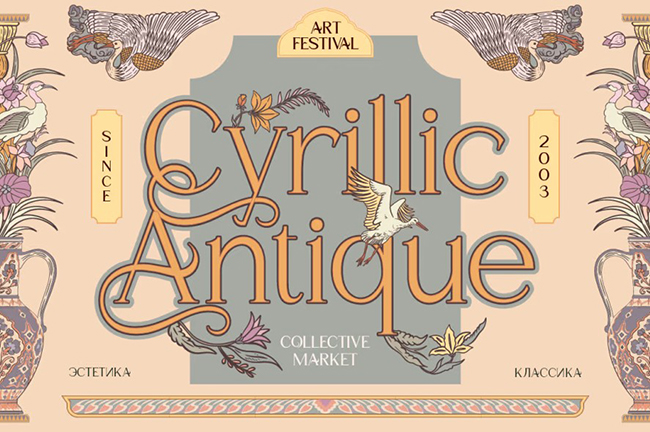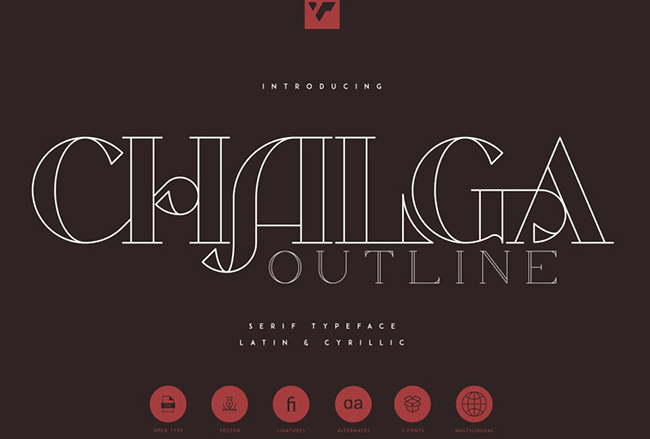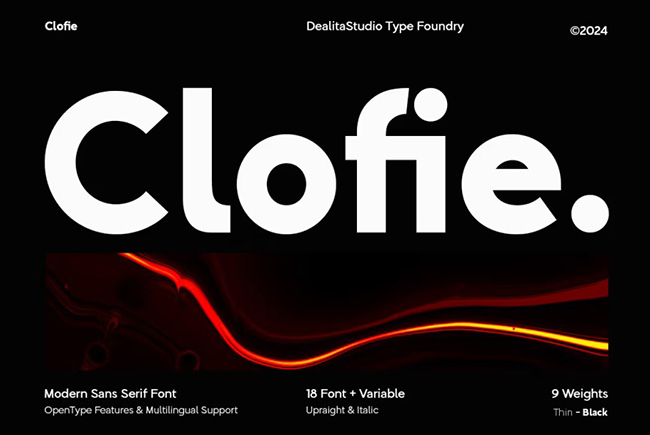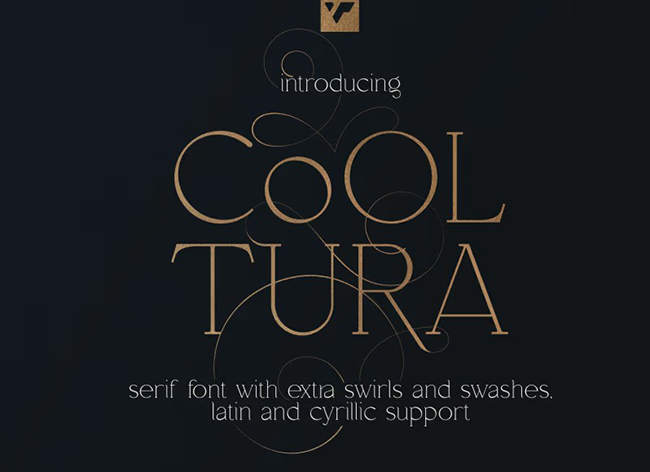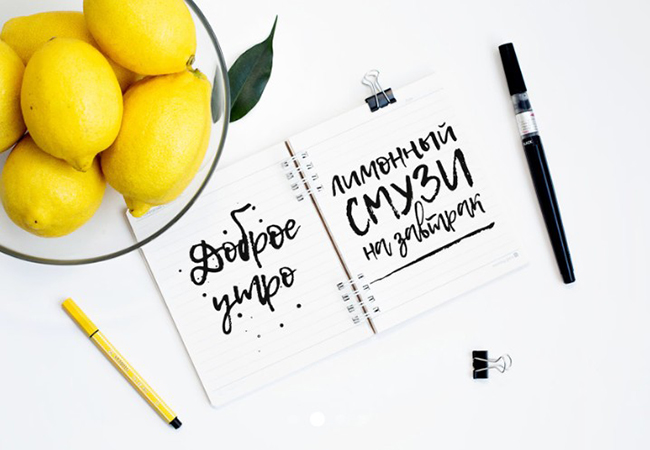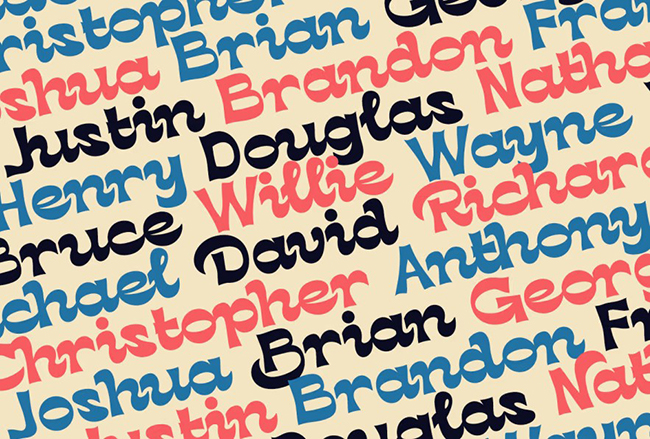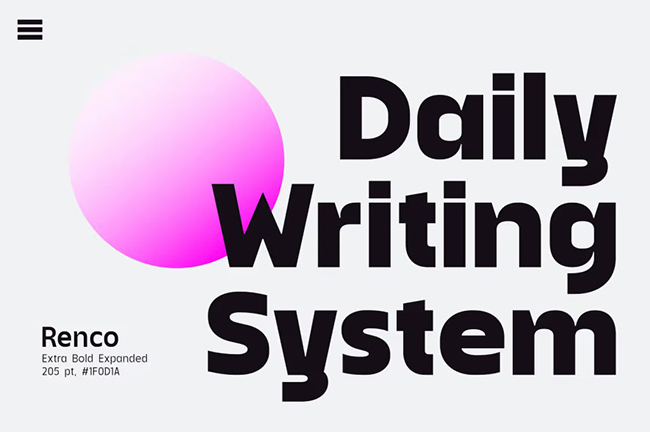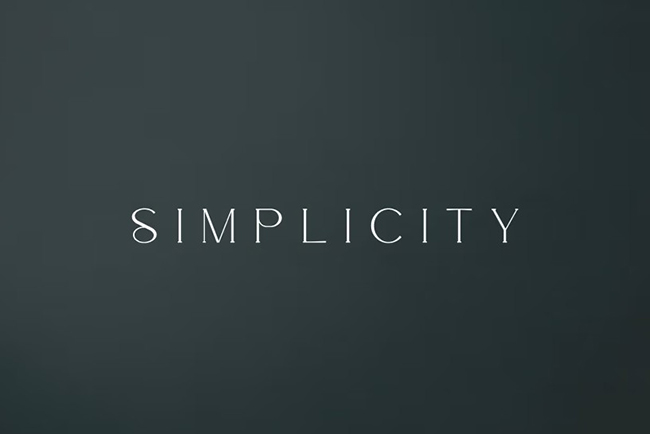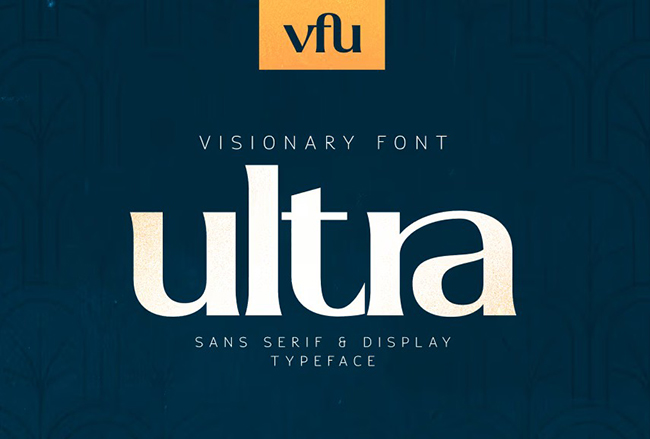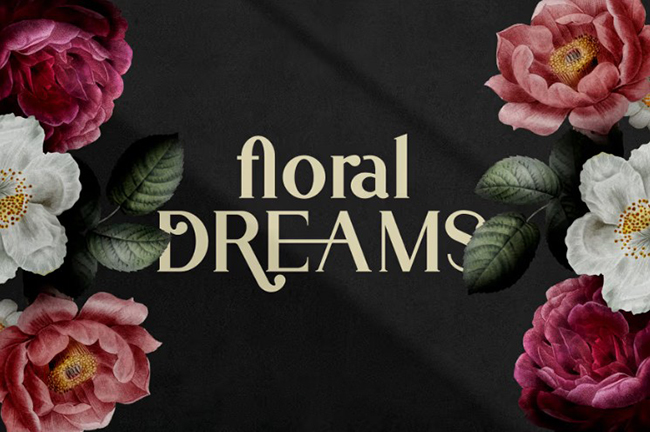
30 Free Cyrillic Fonts — Download for Personal and Commercial Use
Free Cyrillic fonts are essential for designers creating branding, websites, posters, packaging, editorial layouts, social media graphics, and digital products for audiences that use Cyrillic-based languages.
But good Cyrillic typography is not simply a Latin font with extra characters added at the end.
The Cyrillic alphabet has its own proportions, rhythm, letter relationships, and language-specific characters. A typeface may technically contain Cyrillic glyphs and still feel inconsistent when Latin and Cyrillic text appear together. Another font may look beautiful in Russian but be missing characters required for Ukrainian, Bulgarian, Serbian, or other languages.
That makes font selection especially important for multilingual design.
This DesignRise collection brings together 30 free Cyrillic fonts and free-to-download Cyrillic typeface resources covering modern sans serifs, elegant serif families, handwriting, script fonts, typewriter styles, geometric grotesques, vintage typography, experimental display fonts, and futuristic typefaces.
They can be explored for:
• Ukrainian and other Cyrillic-language branding.
• Logo and identity design.
• Websites and UI projects.
• Editorial layouts and magazines.
• Posters and advertising.
• Packaging and product labels.
• Social media graphics.
• Invitations and stationery.
• Technology and gaming projects.
• Luxury and fashion branding.
This guide also explains how to check Cyrillic language coverage, what Ukrainian designers should test before choosing a font, how to combine Latin and Cyrillic typography, how to choose between display and text families, and why font licensing should always be reviewed individually.
Free Cyrillic Fonts: What Designers Should Check First
Seeing the word “Cyrillic” on a download page is only the beginning.
Check the Exact Language You Need
Cyrillic support is not identical across languages.
For example, a Ukrainian project may require characters such as:
• Ґ ґ
• Є є
• І і
• Ї ї
A typeface designed primarily around another Cyrillic language may not include every character your project requires.
Test Latin and Cyrillic Together
Many contemporary brands use both scripts:
• Brand name in Latin.
• Product description in Ukrainian.
• Website navigation in Cyrillic.
• International campaign copy in English.
The two alphabets should feel like parts of the same type family rather than unrelated fonts forced together.
Check Numerals and Punctuation
Do not forget:
• Prices.
• Dates.
• Phone numbers.
• Currency symbols.
• Apostrophes.
• Quotation marks.
• Dashes.
These details become especially important in packaging, websites, editorial layouts, and commercial branding.
Which Cyrillic Font Style Should You Choose?
StyleBest ForWhat to Check
Geometric sans serifWeb, UI, branding, presentationsFull weights, readability and language coverage.
SerifEditorial, luxury, books, packagingThin details and text-size readability.
Handwritten / scriptInvitations, social media, lifestyleConnections, capitals and required Cyrillic glyphs.
DisplayPosters, titles, logos, campaignsUse short text and test small sizes.
ExperimentalFashion, music, technology, cultural designPrioritize recognizability over novelty.
30 Free Cyrillic Fonts for Designers
1. Vetka Font
Free Cyrillic fonts featuring Vetka handwritten typeface
Best for: branding accents, invitations, social graphics, packaging, posters, stationery, and artistic typography.
Vetka is a handwritten Cyrillic typeface with an expressive and personal character. Its irregular movement makes it useful when a project needs warmth and individuality rather than strict geometric precision.
Use It as an Accent
A handwritten font can become much stronger when surrounded by clean typography. Try Vetka for the brand name or headline and use a neutral sans serif for supporting information.
2. Forum Font
Forum elegant Cyrillic serif font
Best for: editorial design, cultural projects, luxury branding, invitations, packaging, book covers, and sophisticated titles.
Forum brings a more classical serif direction to the collection. It works naturally when a project needs authority, elegance, or a historical undertone without relying on highly decorative lettering.
Useful for Editorial Hierarchy